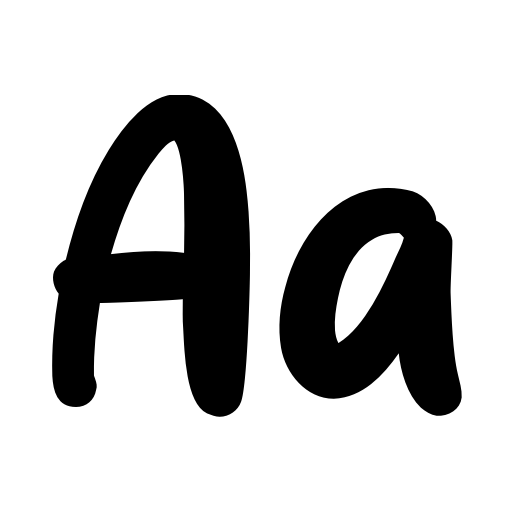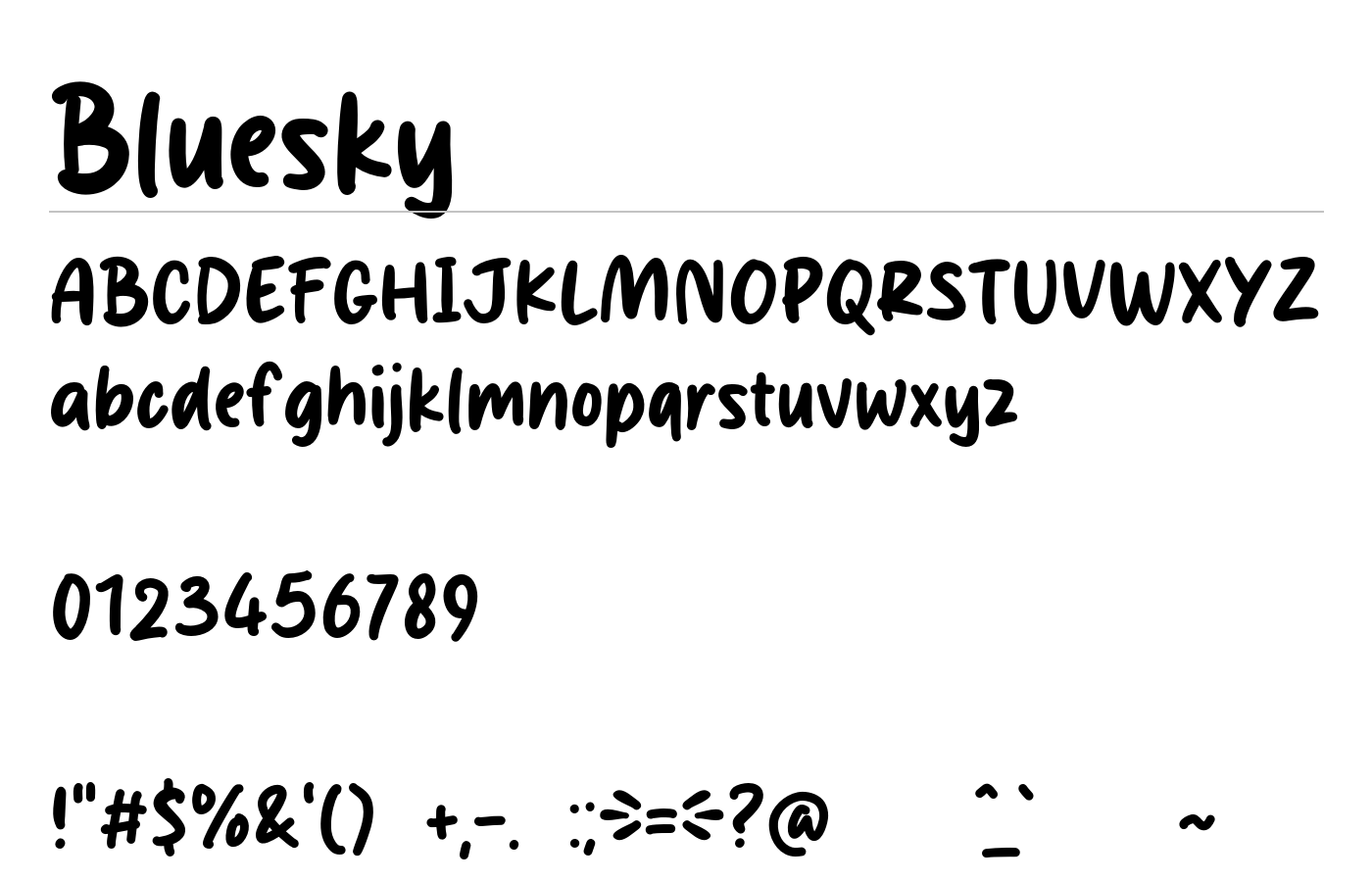
Bluesky is a playful and approachable sans serif font with a hand-drawn, casual feel that features rounded, soft edges and moderate stroke contrast. Its upright letterforms, single-story characters, and clear numerals make it easy to read while conveying a friendly, informal personality perfect for children's materials, creative projects, and casual branding. This font works well in headlines, logos, and packaging where a warm, inviting tone is desired.
Bluesky Font
About Bluesky Font